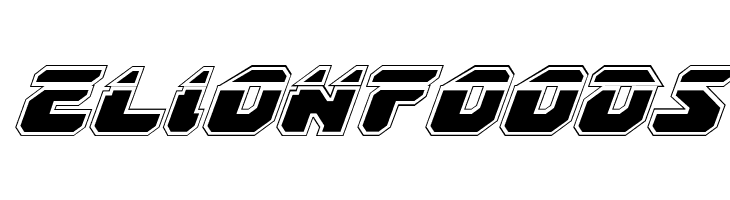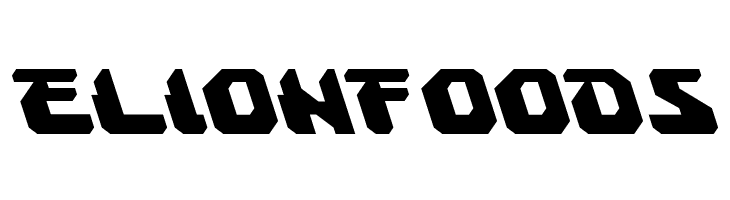
• Astropolis Laser Academy Italic
Futuristic, bold, italicized font with a dynamic, three-dimensional style.
• Astropolis Laser Italic
A bold, futuristic italic font with angular, geometric letterforms.
• Astropolis Leftalic
A bold, futuristic font with angular, geometric shapes.
• Astropolis Rough
A bold, geometric font with a rough, textured finish and sharp, angular characters.
• AstroSymbolsThree
Decorative symbol font with zodiac and astrology-themed icons.
• Astylooms Free Regular
A dynamic, handwritten font with fluid, cursive letterforms.
• Aswell
( Fonts by uatype.faithweb.com - UnAuthorized Type )
A whimsical, decorative font with arrow-like serifs and playful character design.
• Aswell Bold
( Fonts by uatype.faithweb.com - UnAuthorized Type )
• at risk youth
A playful, casual handwritten font with uneven strokes and a dynamic feel.
• at risk youth Bold
A bold, handwritten font with a dynamic and energetic style.